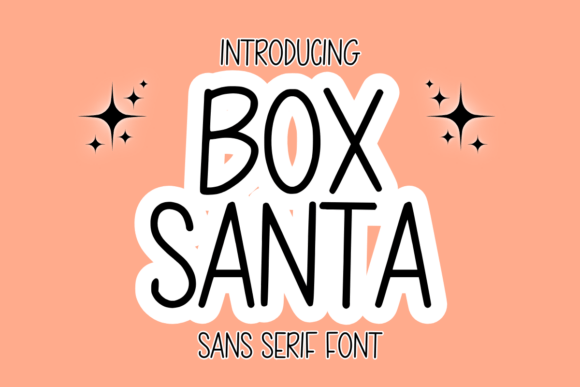
Adding a Touch of Whimsy to Your Creations
Have you ever sat down with a blank journal or notebook, feeling uninspired and unsure of where to start? It’s a familiar creative struggle, but one that can be easily overcome with the right tools. For designers and writers, the right font can be the spark that sets the imagination ablaze.
Enter the Box Santa Font – a playful, handwritten sans serif typeface that’s as charming as it is versatile. This delightful font is designed to bring a touch of joy to even the most mundane tasks, from jotting down notes in a planner to creating beautiful invitations. Whether you’re a teacher looking to add a personal touch to your materials or a designer seeking to elevate your KDP creations, the Box Santa Font is an invaluable addition to your toolkit.
Key Features of Box Santa Font
- Unique Characteristics: The font features a unique, hand-drawn design with a festive and playful feel, perfect for holiday-themed projects, gift tags, and packaging.
Box Santa Font Review
Overall, I was quite impressed with the Box Santa Font. The design is playful, yet elegant, making it perfect for Christmas-themed projects or any project that needs a fun, festive touch. ✨
The font’s unique shape and layout add a lot of character, and the various font weights and styles allow for a lot of customization options. ✨
Here are some of the font’s strengths:
- Highly customizable: The font comes in various weights and styles, making it easy to adapt to different design needs.
- Unique design: The font’s box-like shape adds a lot of character and makes it stand out from other fonts.
- Easy to read: Despite its playful design, the font is still easy to read and understand.
- Limited language support: The font may not support certain languages or characters, which could be a limitation for some designers.
- Not suitable for body text: While the font is great for headings and titles, it may not be the best choice for body text due to its playful design.
- Dependent on context: The font’s effectiveness depends on the context in which it’s used, so designers need to be mindful of the overall design and message.
Overall, I think the Box Santa Font is a great choice for designers who want to add a fun, festive touch to their projects. While it has some limitations, its unique design and high customization options make it a valuable addition to any design toolkit.
Here are some tips to get the most out of the Box Santa Font:
- Use it in conjunction with festive graphics and colors to create a cohesive holiday design.
- Pair the font with other bold, playful fonts to create a fun and festive atmosphere.
The Box Santa Font is perfect for:
- Holiday marketing materials, such as email campaigns and social media posts.
- Gift tags and
Alternatives to “Box Santa Font” for Designers
Bebas Neue is a modern sans-serif font that works well for headings and titles. It has a bold and elegant feel, making it suitable for use in logos, signage, and other branding materials. Compared to Box Santa Font, Bebas Neue has a more contemporary and sleek design, making it a better choice for modern designs.
Great Vibes is a beautiful script font that is perfect for creating a friendly and approachable atmosphere. It has a relaxed and casual feel, making it suitable for use in invitations, social media graphics, and other creative projects. Compared to Box Santa Font, Great Vibes has a more organic and handwritten feel, making it a better choice for projects that require a personal touch.